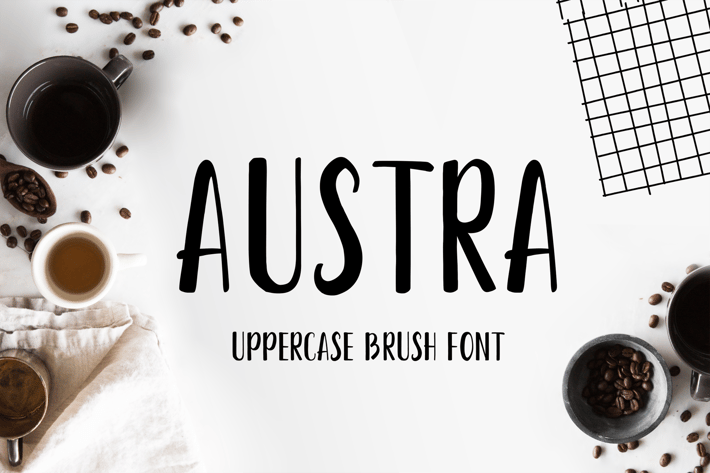
Austra Uppercase Font
Austra Uppercase Brush Font is a geometric brush font with a strong construction underneath. It works well for short descriptions, logo and brand identity designs, packaging, headlines, etc.
Uppercase letters, numbers, symbols included.